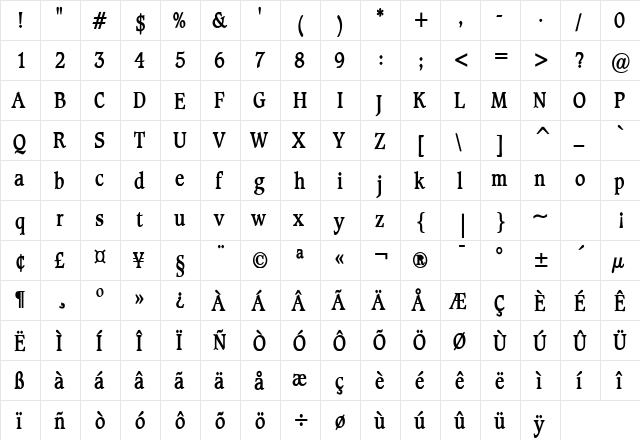
Clayton Condensed Bold
Design Context for Clayton Condensed Typeface
Clayton Condensed offers clean, dependable letterforms without strong stylistic allegiance, making it a practical choice for designers who need flexibility. The heavy weight commands attention and anchors typographic hierarchies. The condensed width makes it efficient for tight spaces without sacrificing legibility.
Pro Tip: Use Clayton Condensed in both headline and body roles to test its range before committing to a single application.